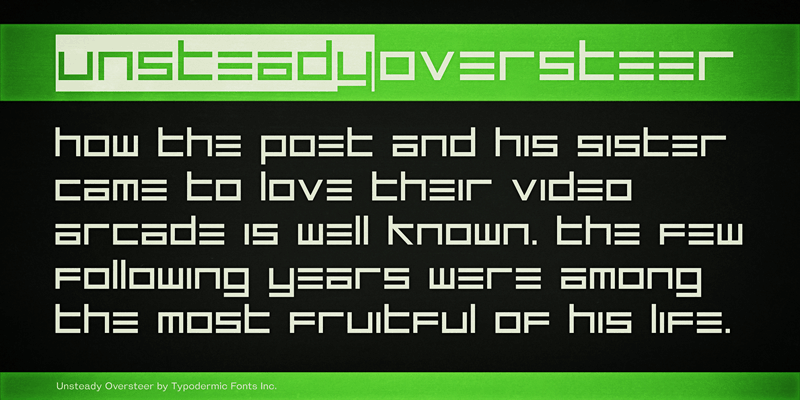
Font name: | Unsteady Oversteer |
Unsteady Oversteer is a geometric techno font with an inverse lowercase. Made with anger, delivered with love. This font includes a license that allows free commercial use: sometimes referred to as a desktop license. This allows you to install the font on a computer and use it to create posters, web graphics, game graphics, t-shirts, videos, signs, logos and more. Read the license agreement for details. If you'd like to embed this font in an app, ebook, on the web or anything that's not covered by the desktop license agreement, visit the link below. You'll find distributors who offer different types of licenses or you can contact me for help. http://typodermicfonts.com/unsteady-oversteer/ |